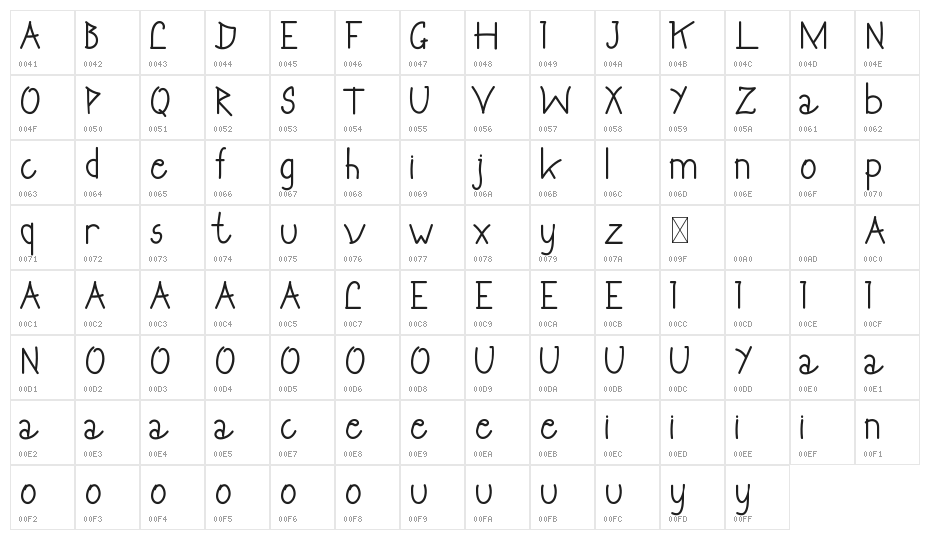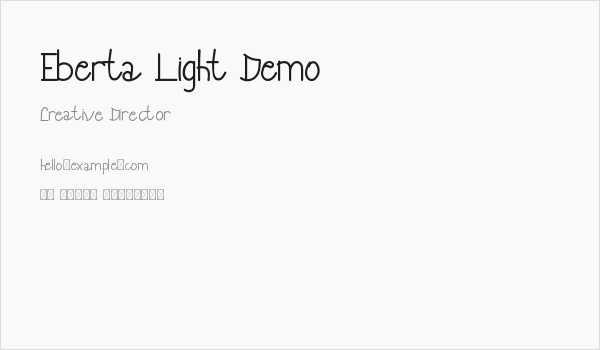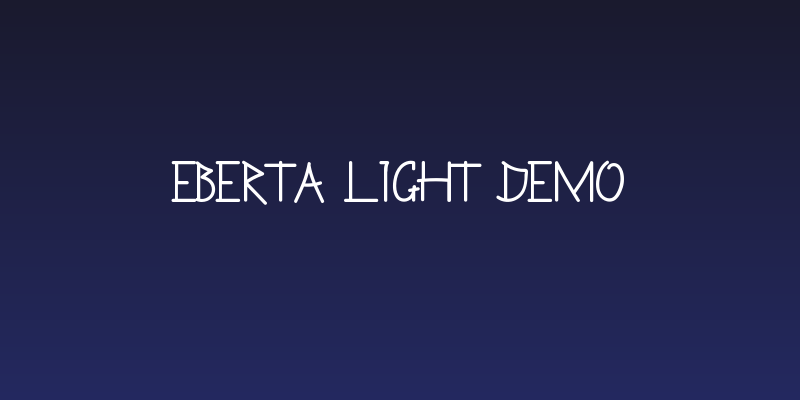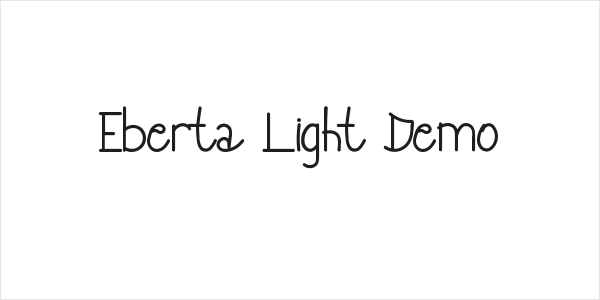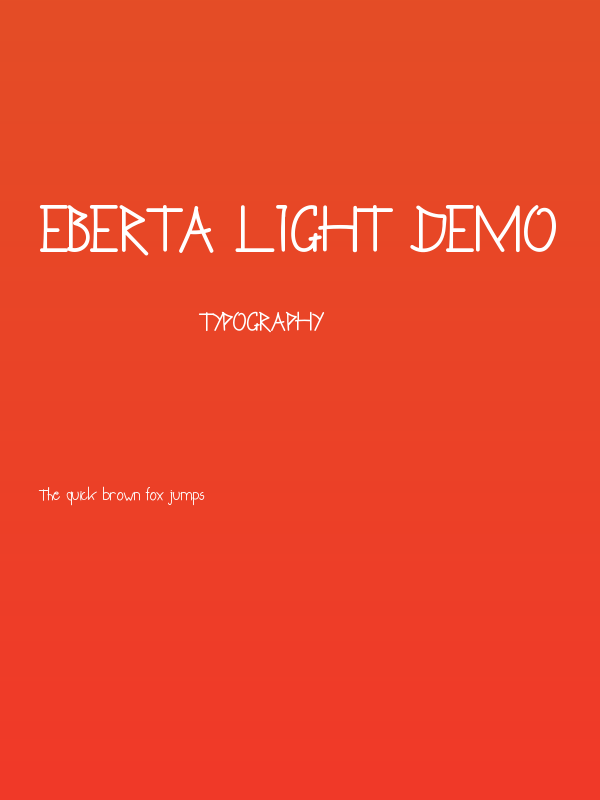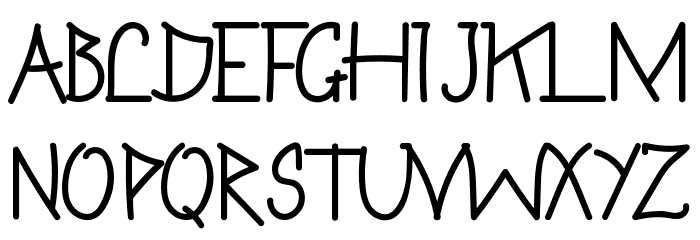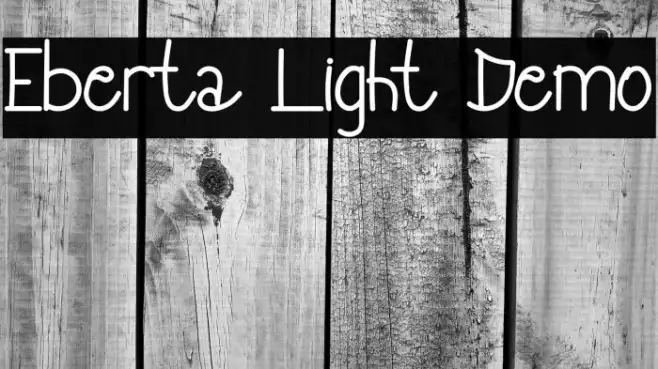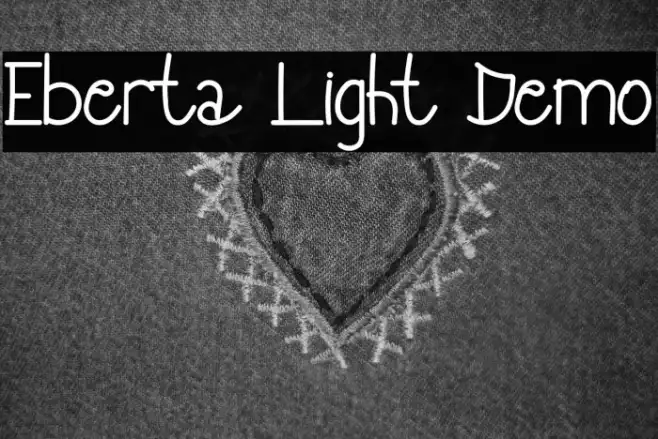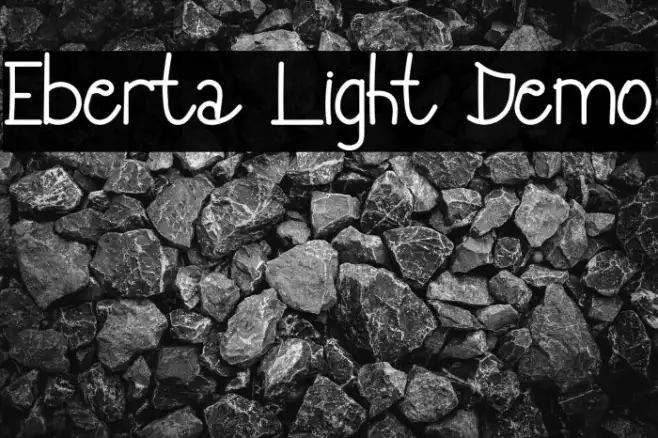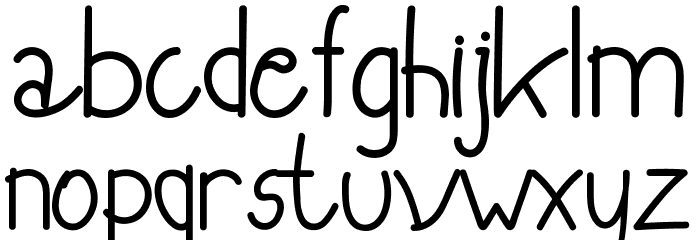
Eberta Light Demo Font
Eberta Light Demo Description
This font features a playful and whimsical design, characterized by its hand-drawn appearance and slightly irregular strokes. The letters are tall and narrow, with a consistent stroke width that gives it a clean and modern look. The uppercase and lowercase letters maintain a uniform style, with rounded edges and a slight tilt that adds to its casual charm. The font's unique personality makes it suitable for creative projects that require a touch of individuality and flair.
| Proposed Projects | Ideal for children's books, greeting cards, playful branding, and creative posters. |